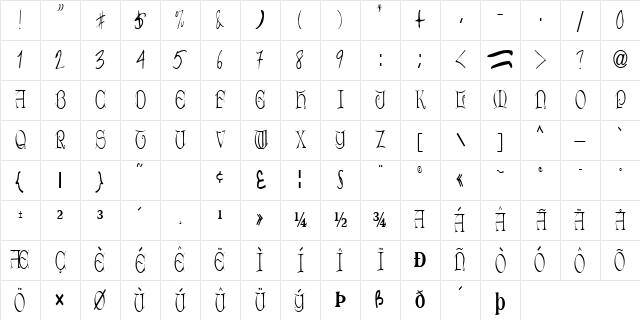
DroPcapperType101 ttcon Regular
Design Context for DroPcapperType101 ttcon
DroPcapperType101 ttcon is a composed and adaptable typeface that performs quietly and consistently across a wide range of design contexts.
Pro Tip: Use DroPcapperType101 ttcon in both headline and body roles to test its range before committing to a single application.